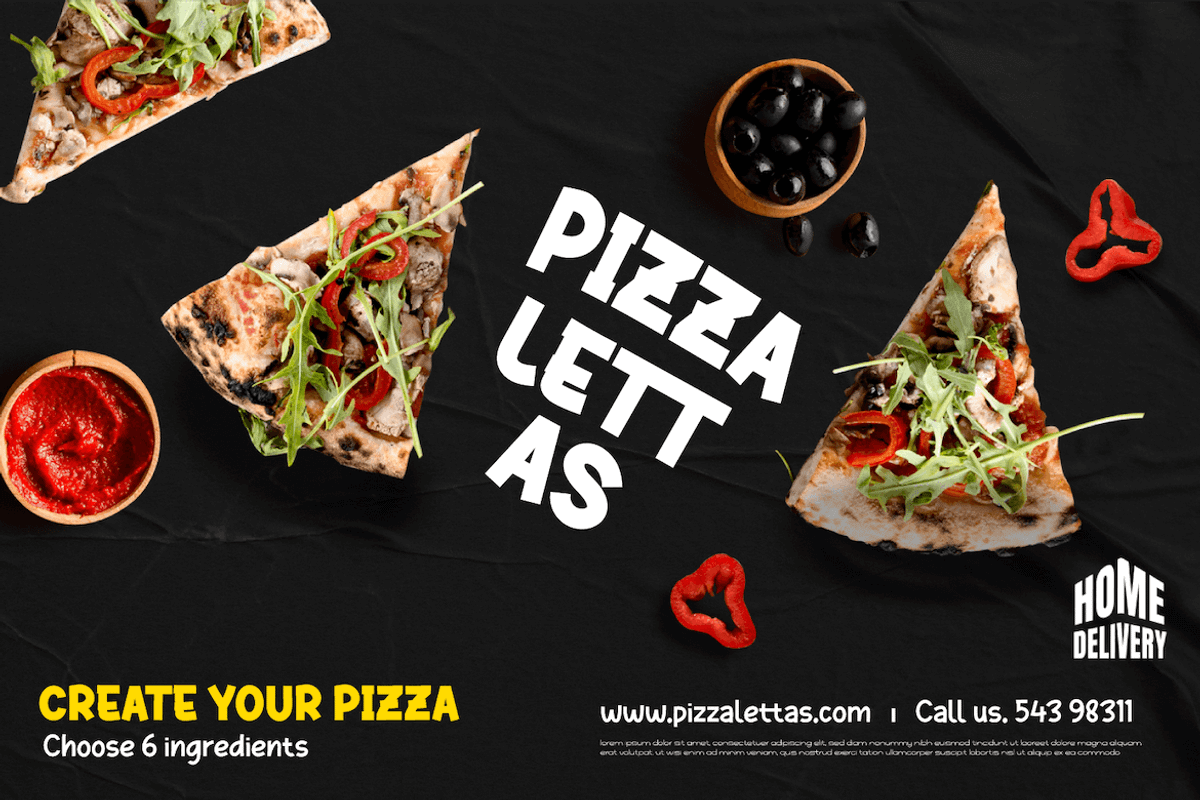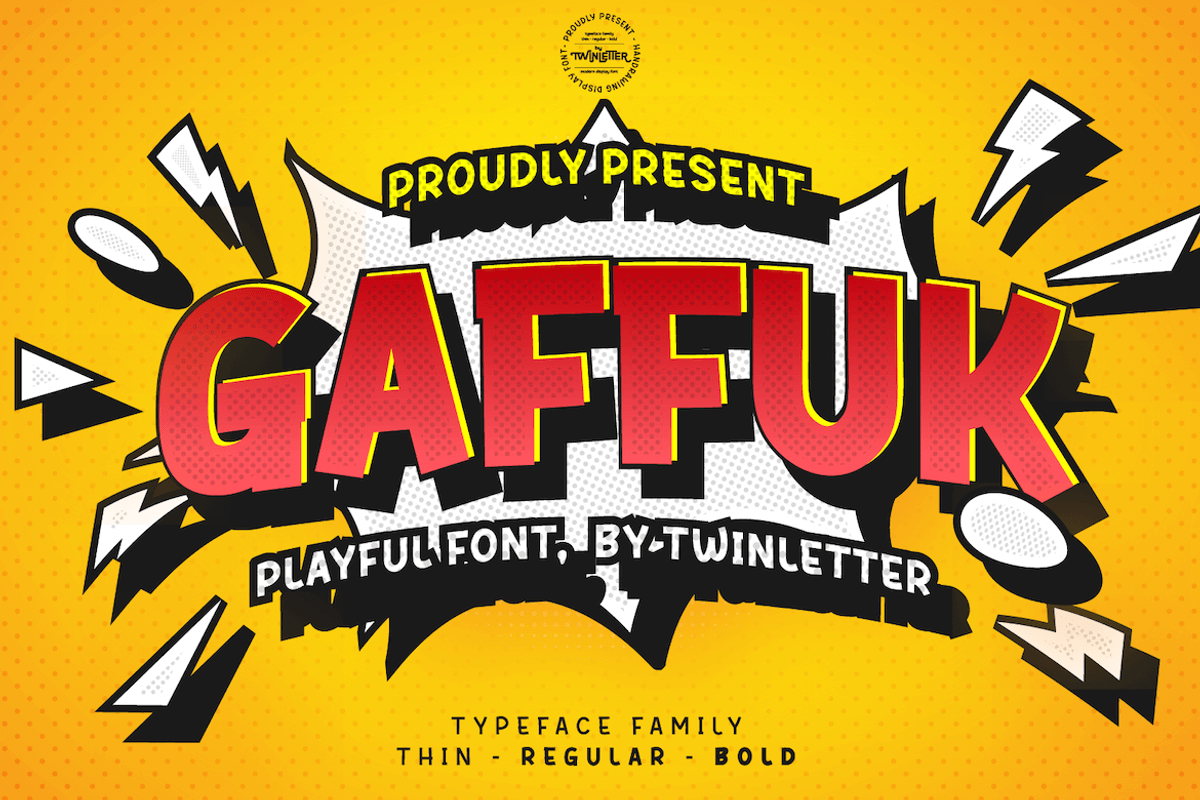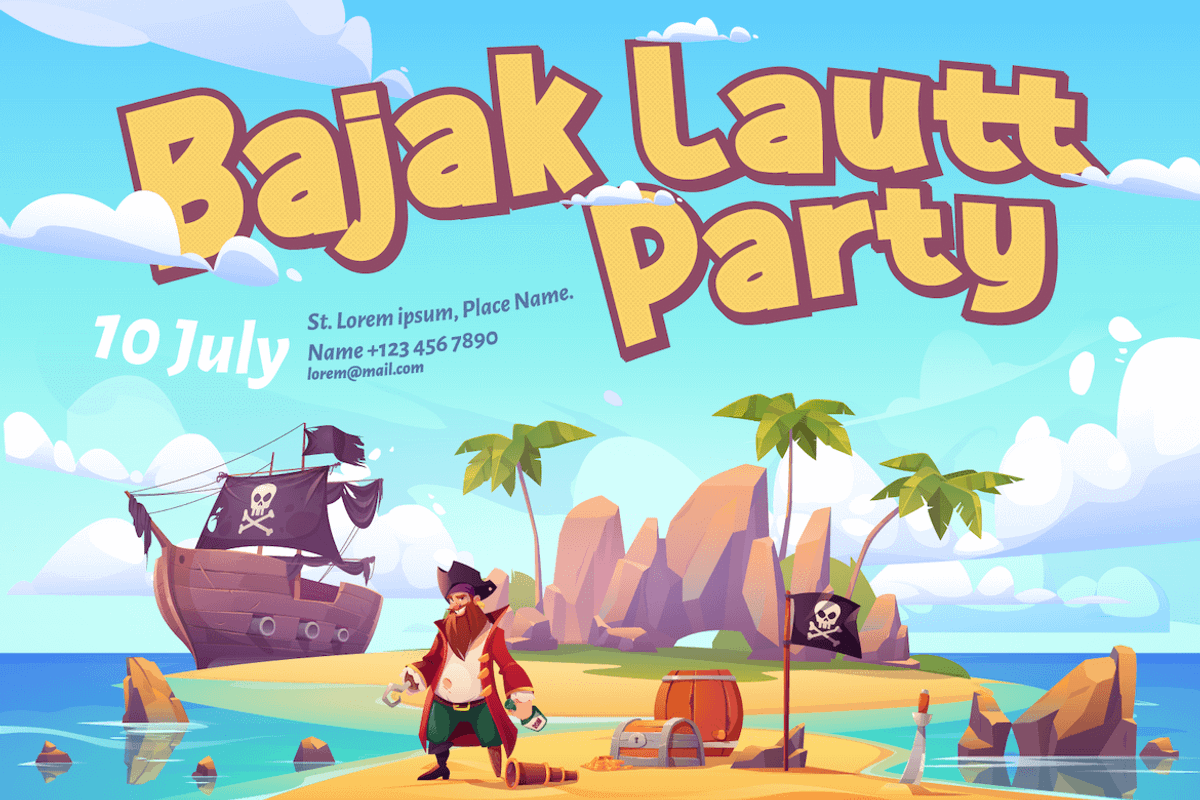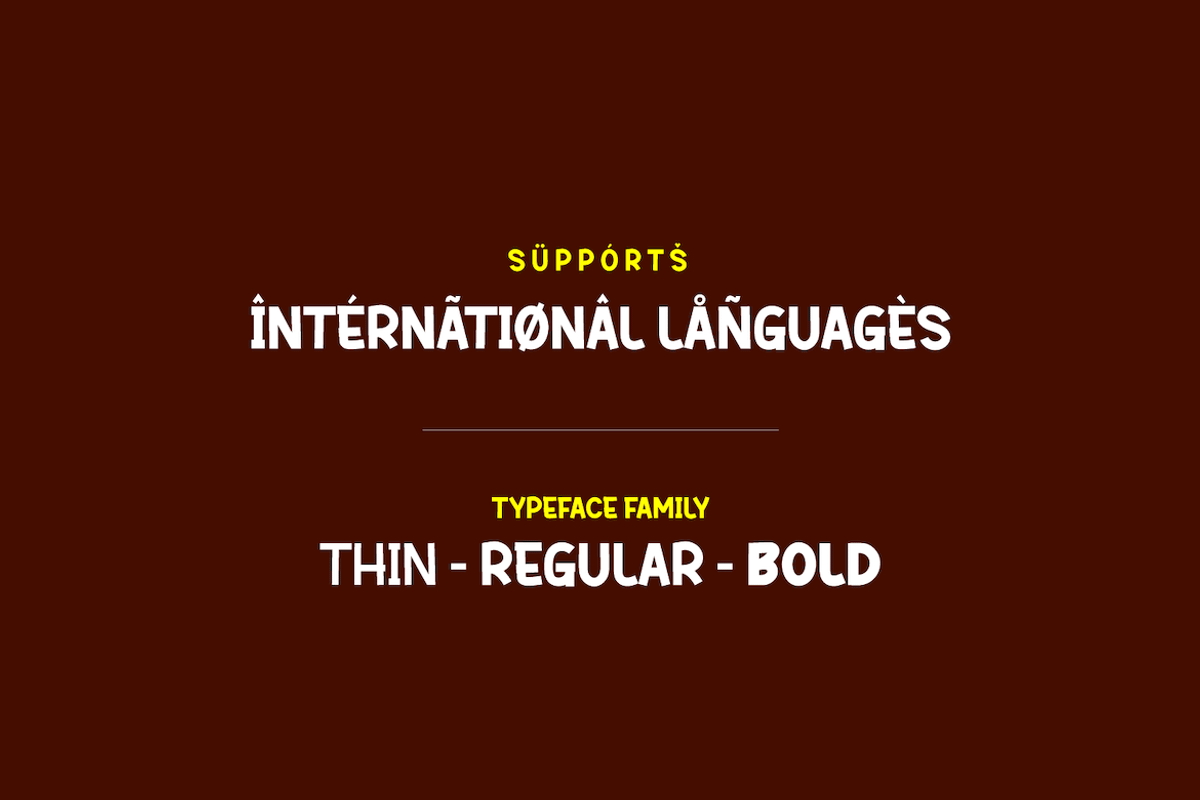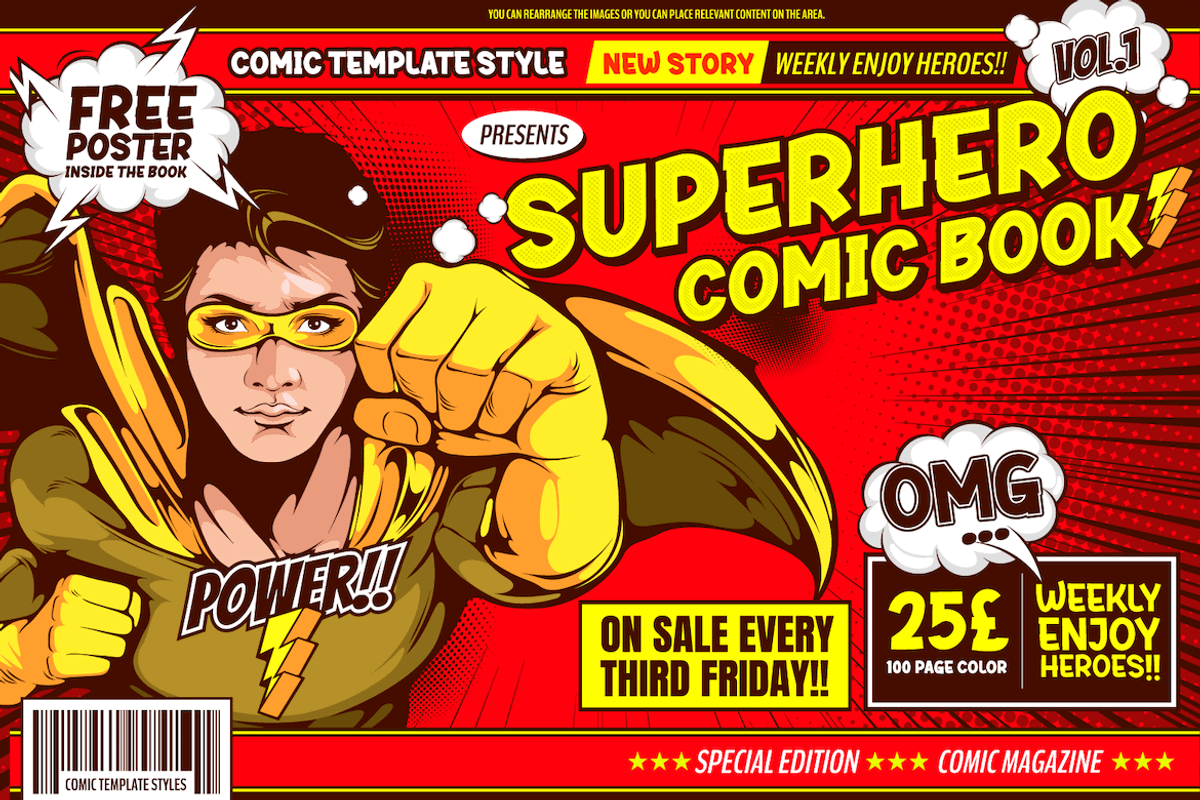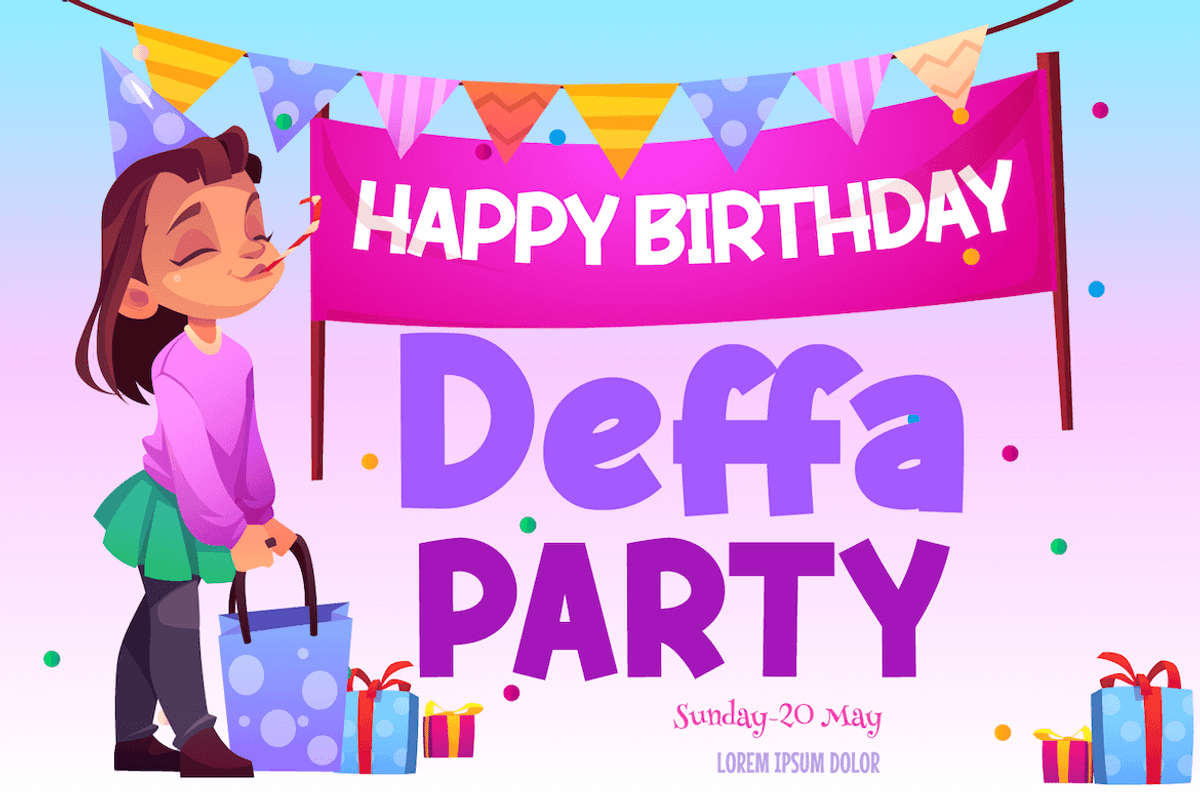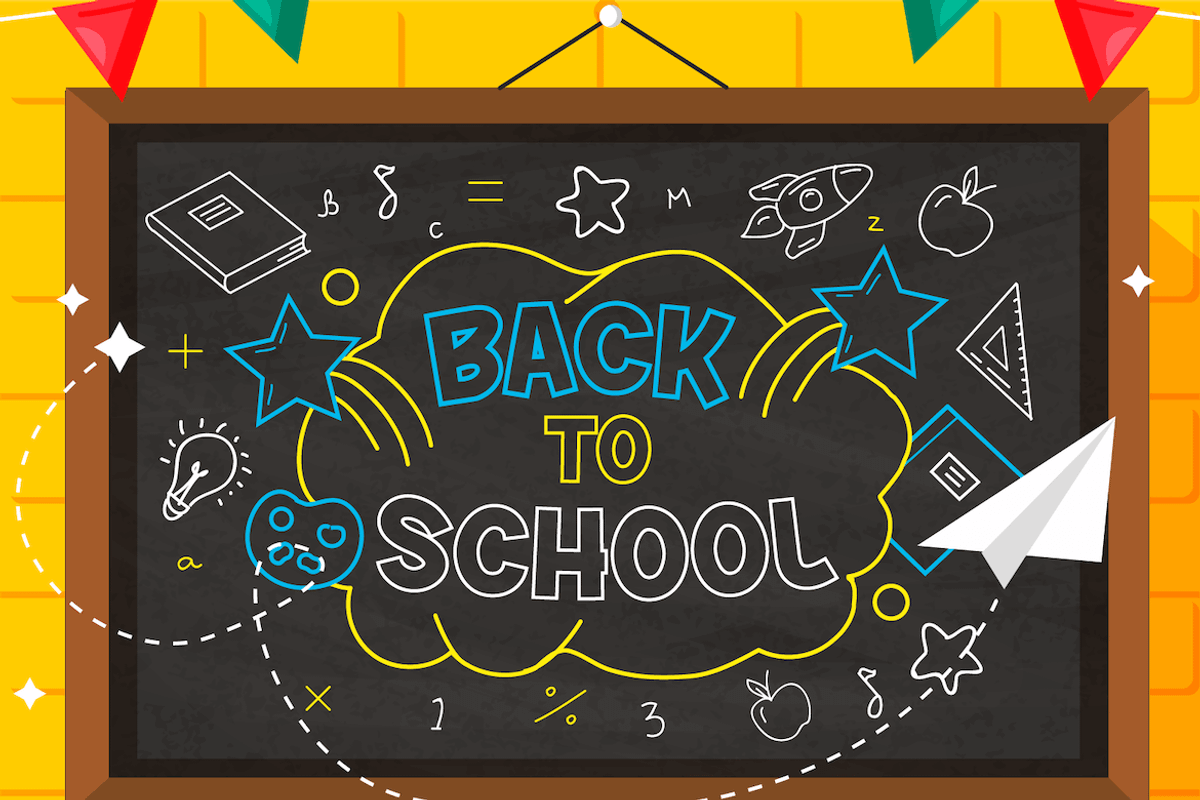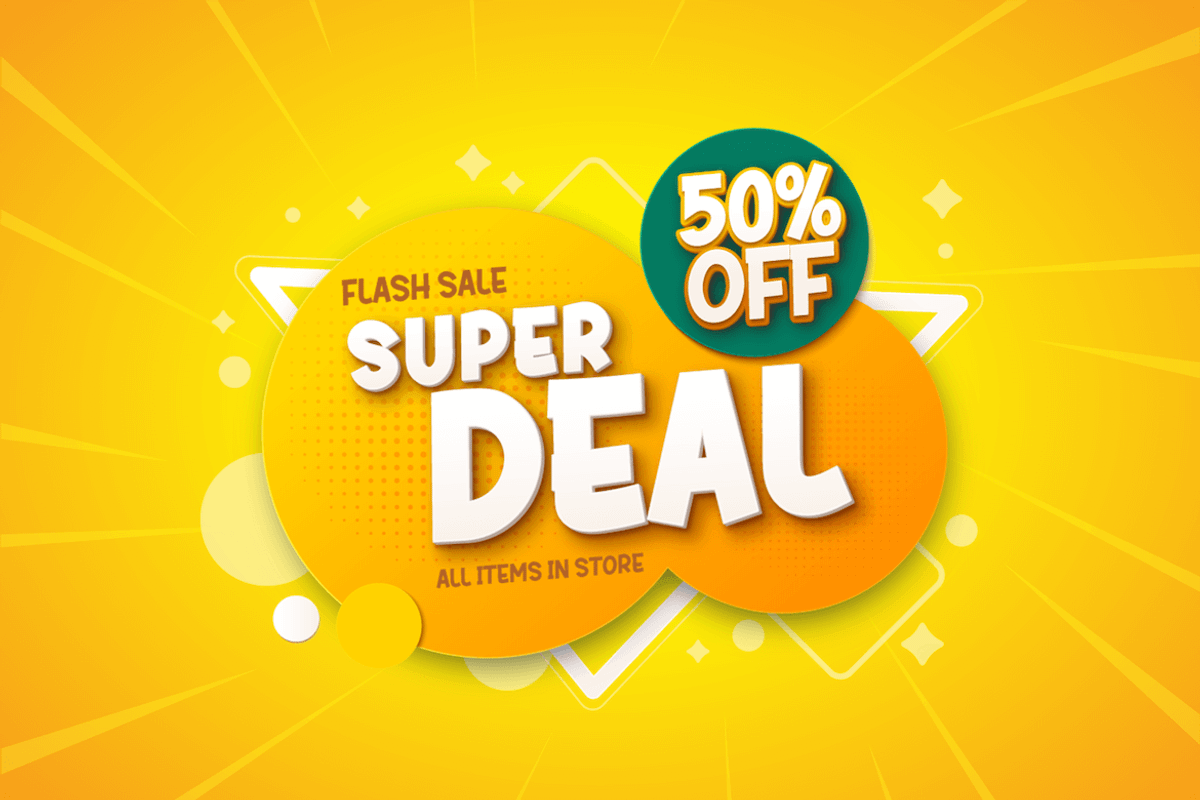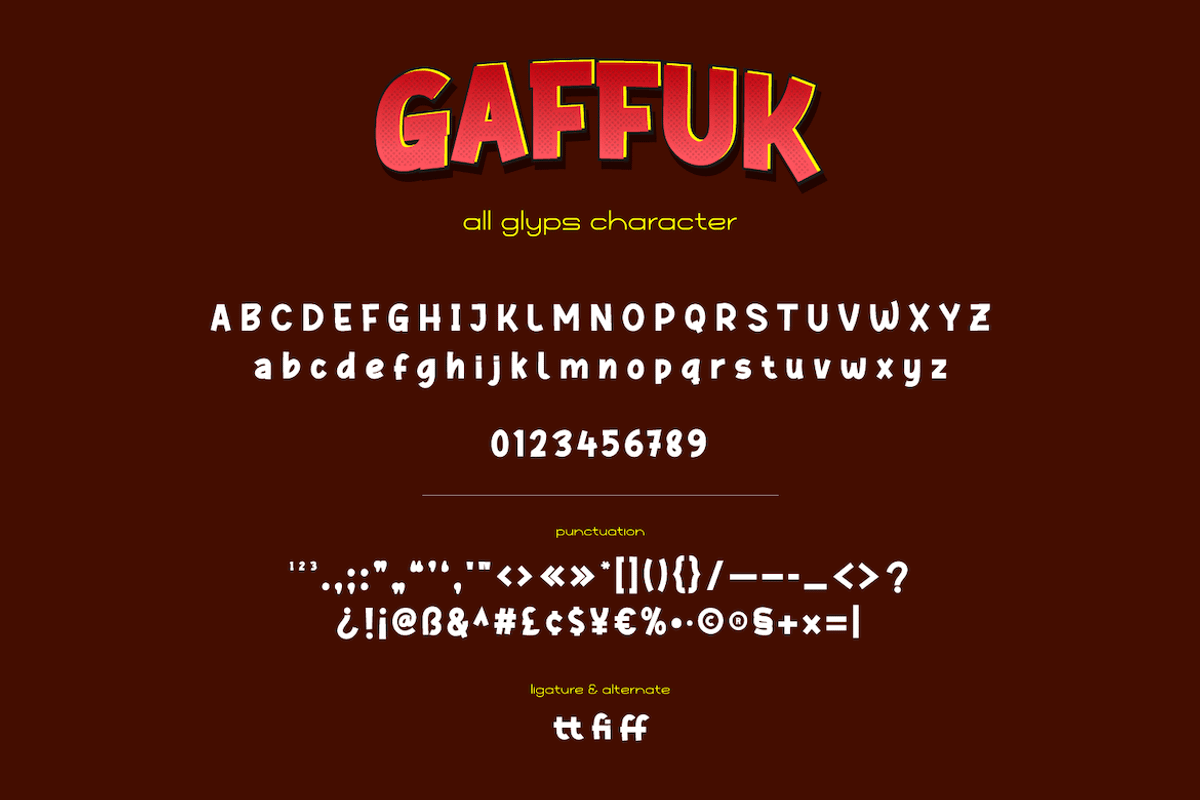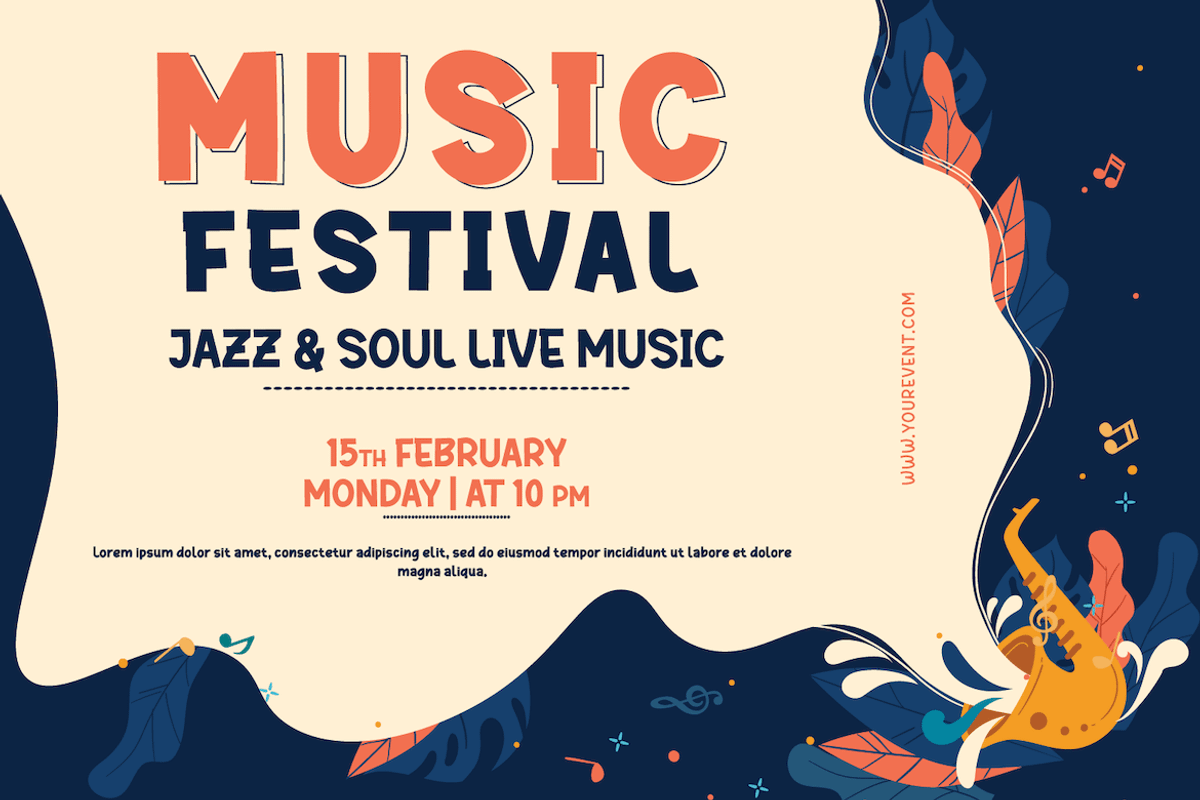
Gaffuk
Gaffuk is a handwritten font that smooths out each character This font is specially designed to have a beautiful and harmonious appearance in the use of your project. This font is equipped with three alternatives to beautify and enhance your needs in providing clear information to the audience but also having a beautiful visual appearance. not only that, but we also complete this font with ligatures and alternates.
This handwritten font is perfect for children’s magazines, drink banners, games, posters, beverage, outdoor events, thumbnails, food banners, cheerful writing, film titles, quotes, titles, logos, and various kinds of projects you need, of course, your various design projects will be perfect and extraordinary if you use this font because this font is equipped with a complimentary font family, both for titles and subtitles and sentence text.